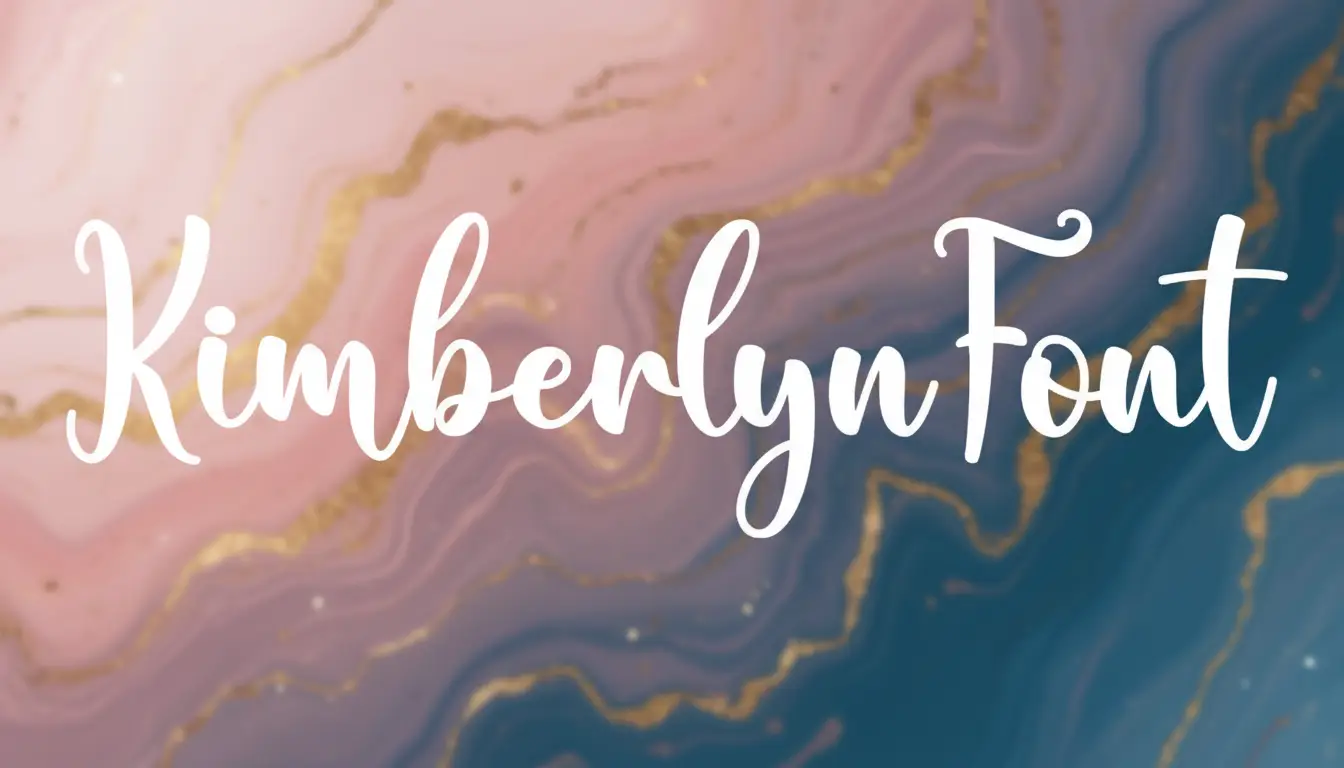
Kimberlyn Font
Kimberlyn
Kimberlyn is a script font designed by Risma Ramawi and published by Nirmala Creative. Its flowing, pen-made letters give names and short phrases a personal, polished look. It's a free download, and you can try it with your own text in the preview above first.
Kimberlyn Font Details
- Designer: Risma Ramawi
- Publisher: Nirmala Creative
- Glyphs: 173
What You Can Type With Kimberlyn
You get every letter from A to Z in both cases and all the numbers from 0 to 9, which means Kimberlyn can handle full sentences, dates and prices. Everyday marks like &, !, ? and @ are there too. Thanks to its accented letters, it also works for Spanish, French, Portuguese and Italian, not just English.
Where Kimberlyn Works Best
Think of Kimberlyn for wedding invitations, logos and signature-style headings. Script fonts read best in short bursts, so keep it to names, titles and one-line quotes. Skip all caps: script capitals are drawn to start a word, not to fill one.
Does Kimberlyn support accented letters?
Yes. Kimberlyn includes the accented letters needed for Spanish, French, Portuguese and Italian, so it works for more than just English.